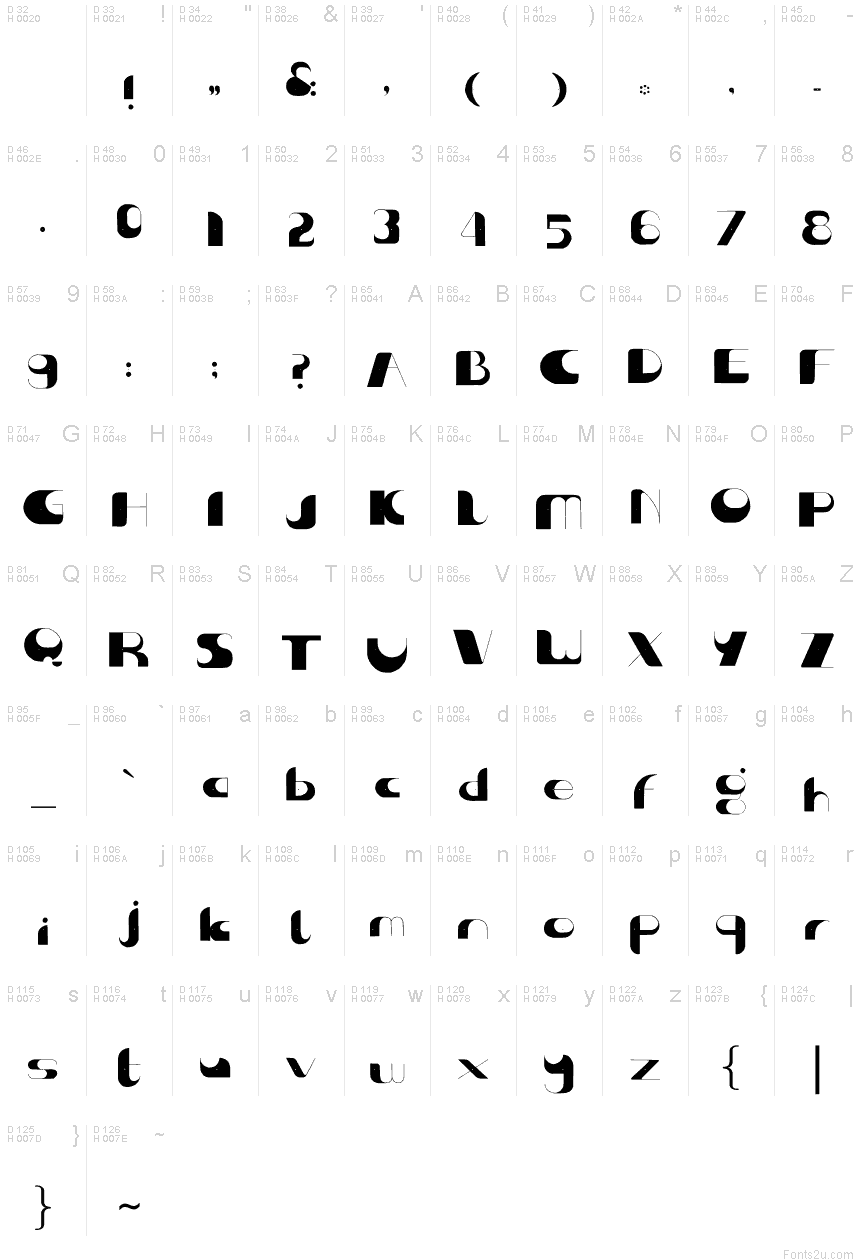
Center of Gravity
Alignment based on the centre of gravity. Each letter is composed of positive and negative regular shapes to allow for the calculation, letterforms are then aligned according to the centre of gravity, as opposed to the baseline and x-height.